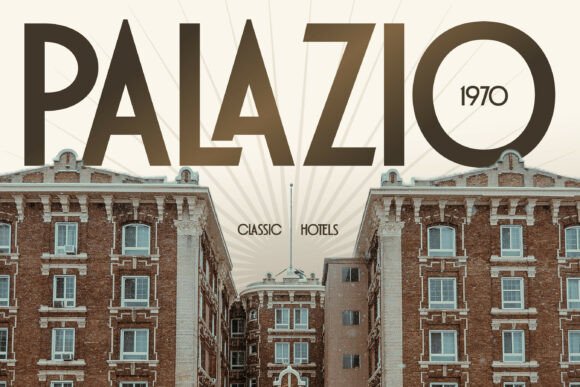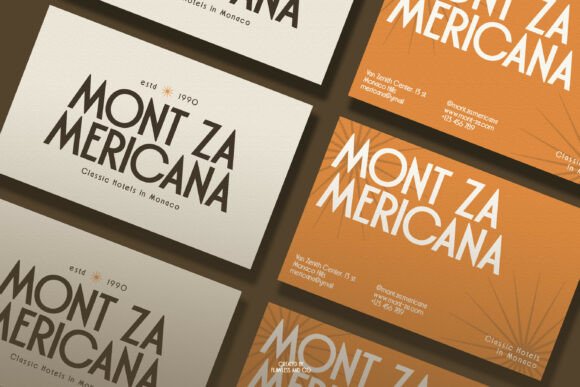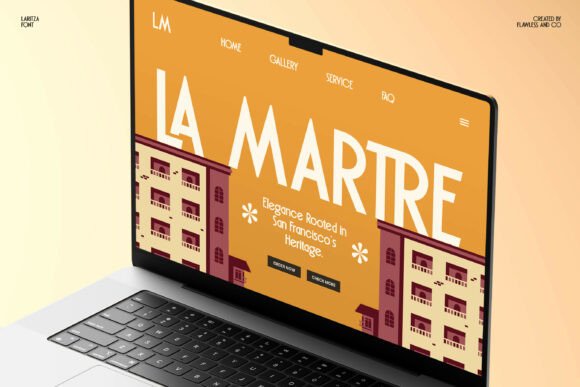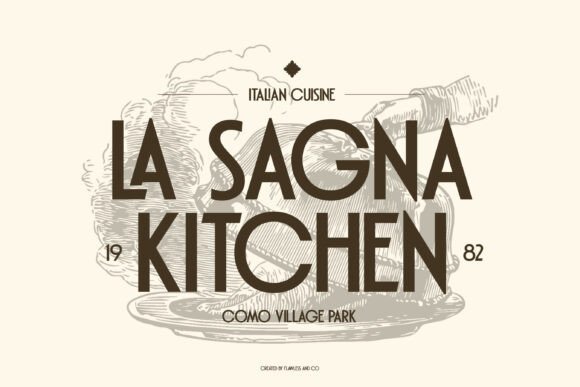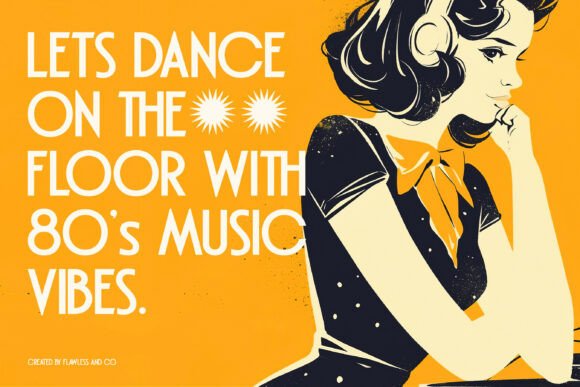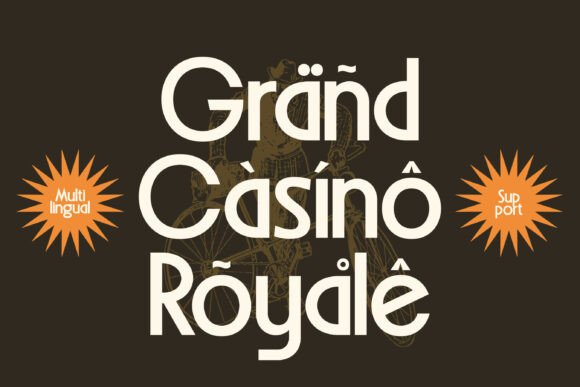
Introduction to Laritza Font
Laritza is a bold retro display sans font inspired by classic vintage typography and timeless poster aesthetics.
With strong letterforms and clean geometric shapes, Laritza delivers a confident and nostalgic look while remaining modern and highly readable .